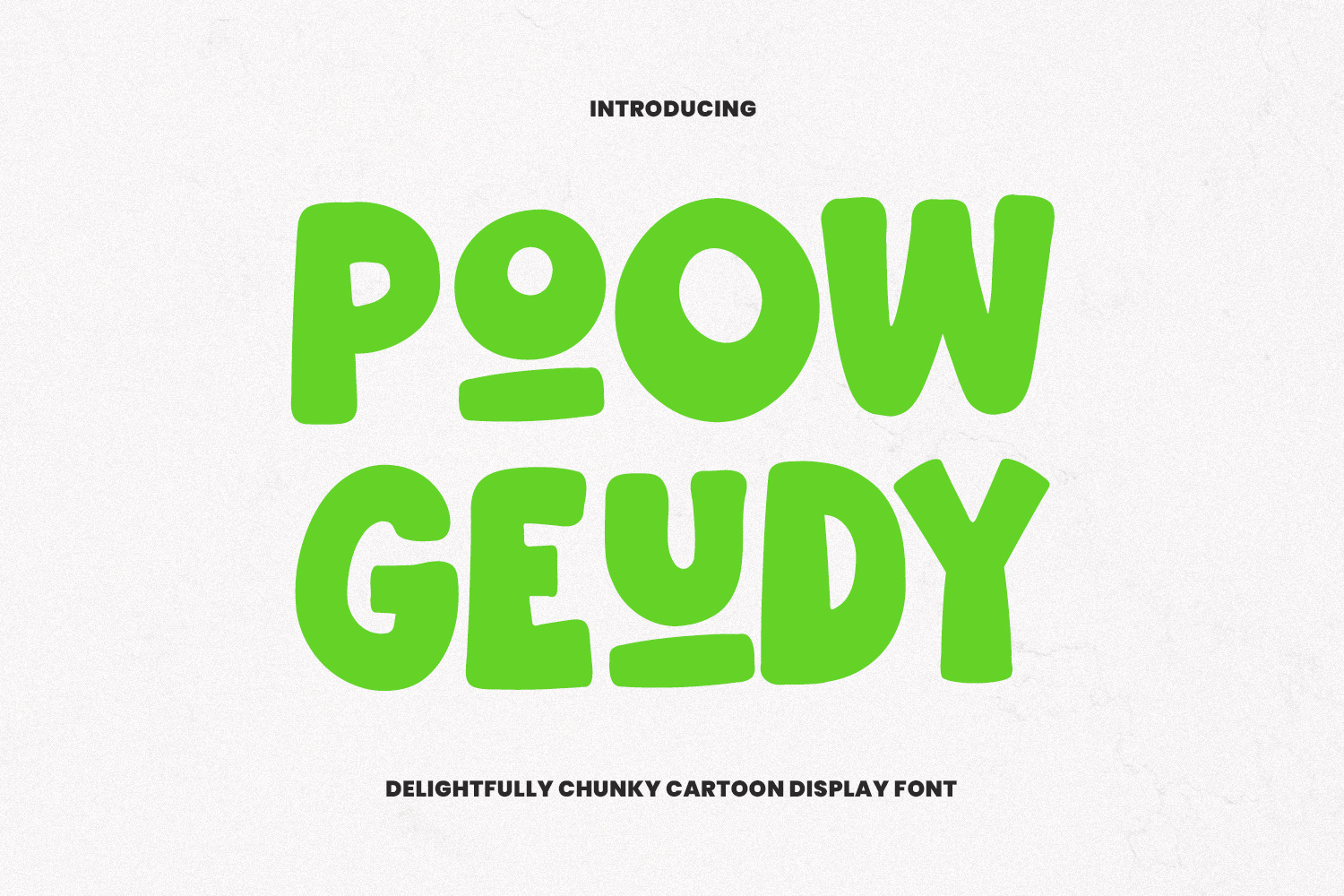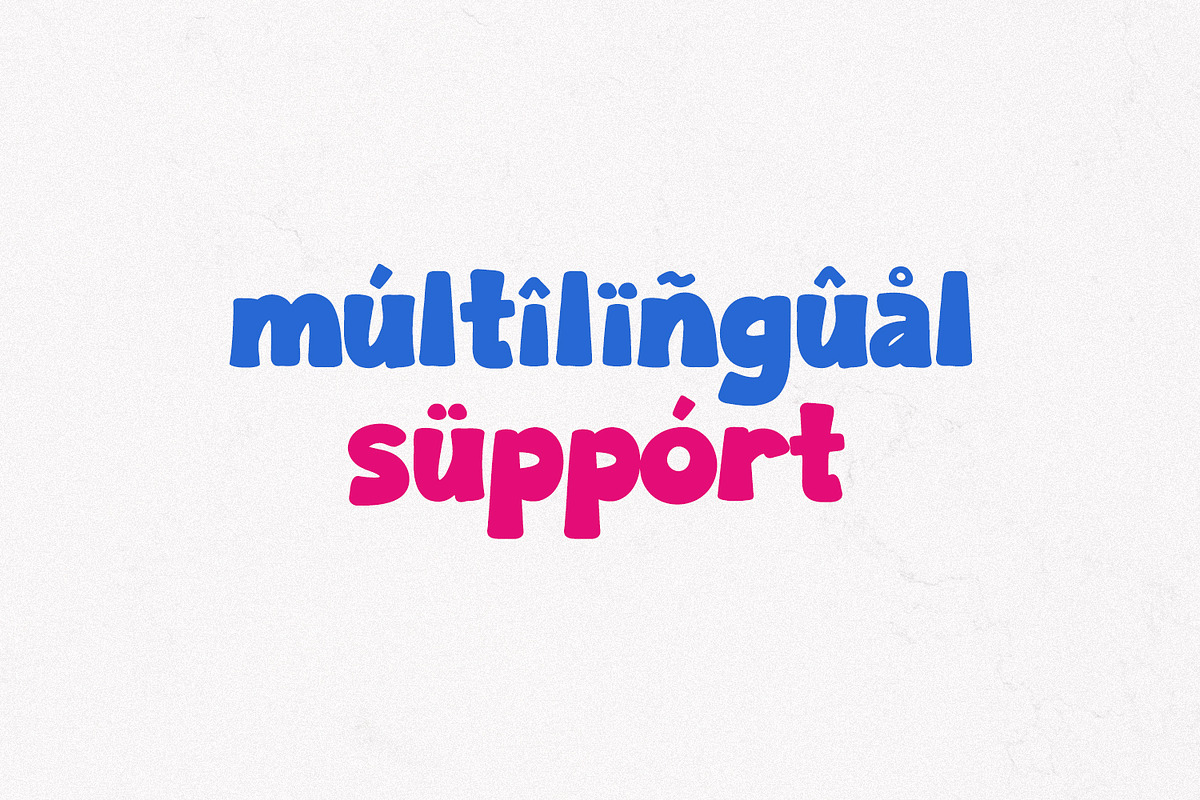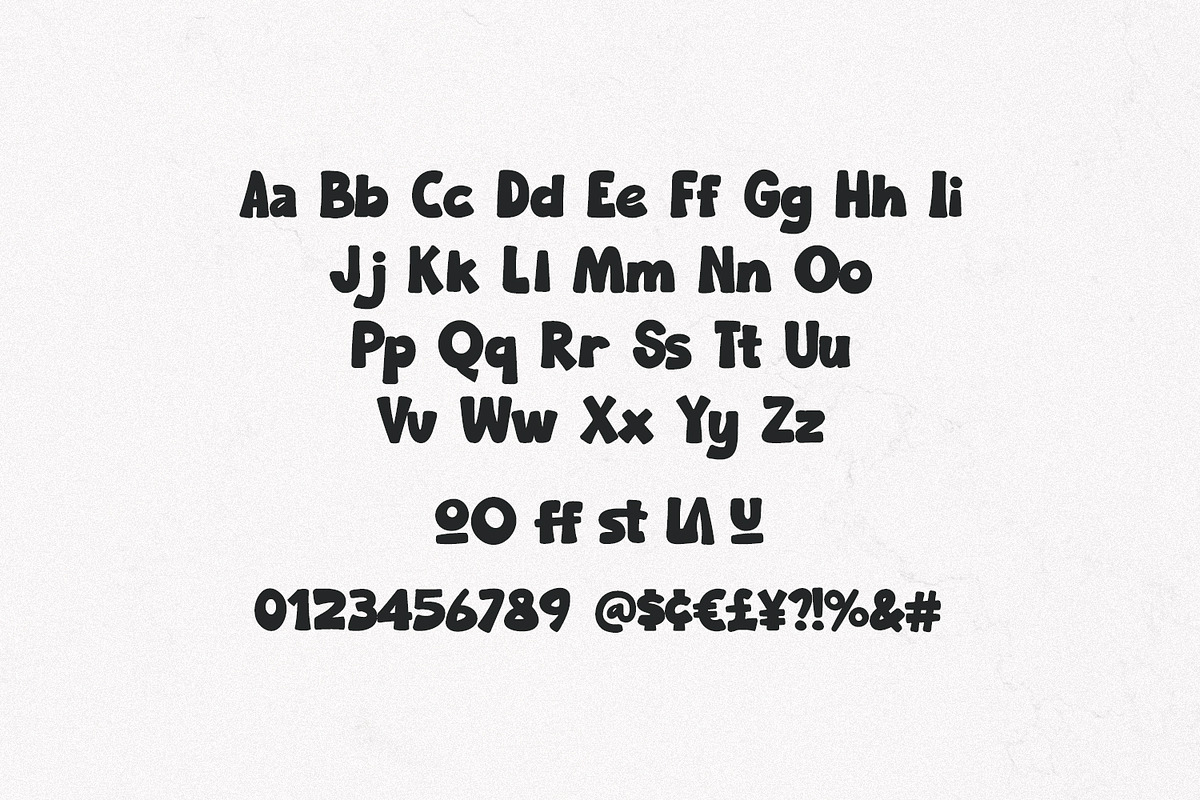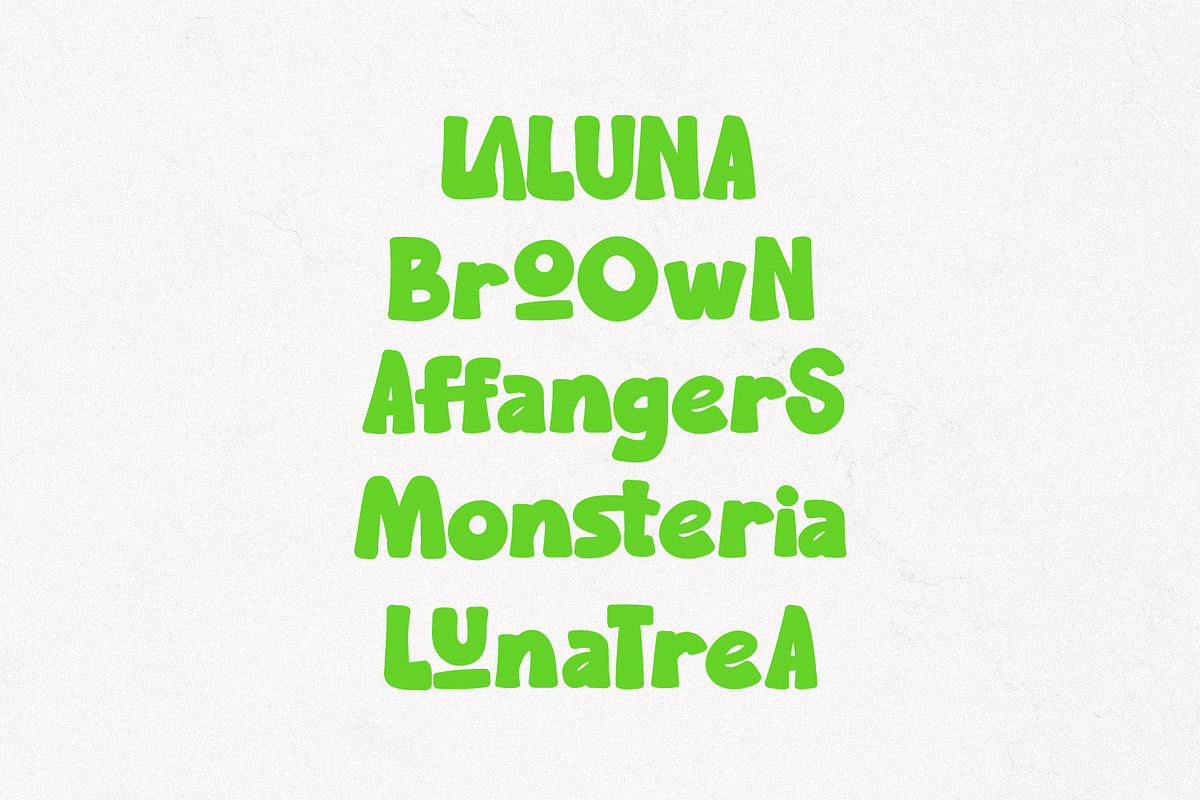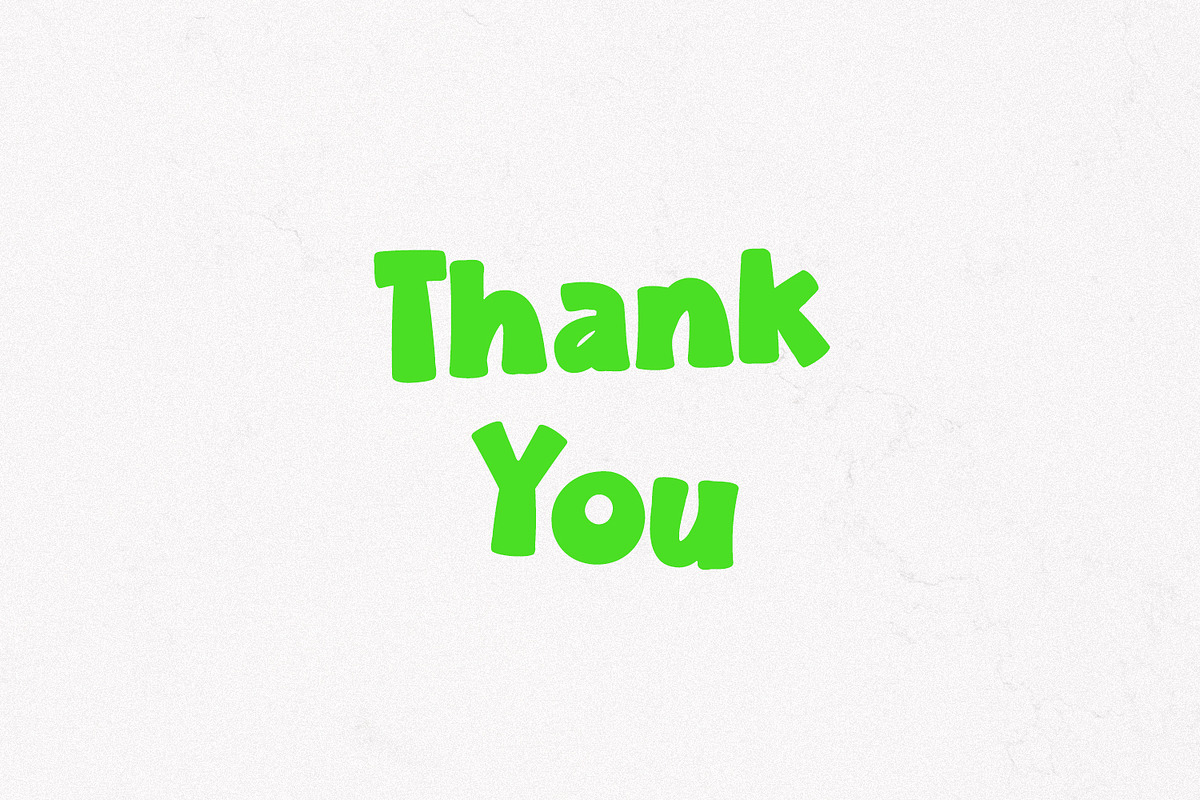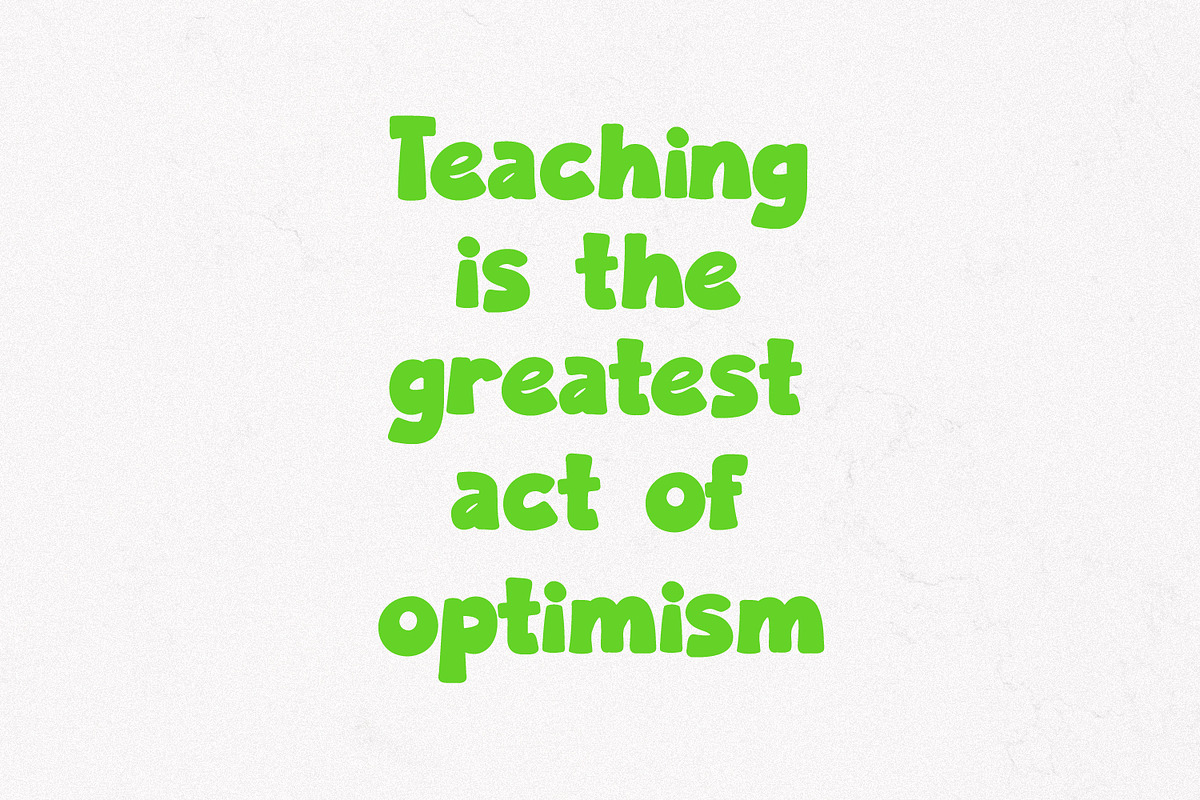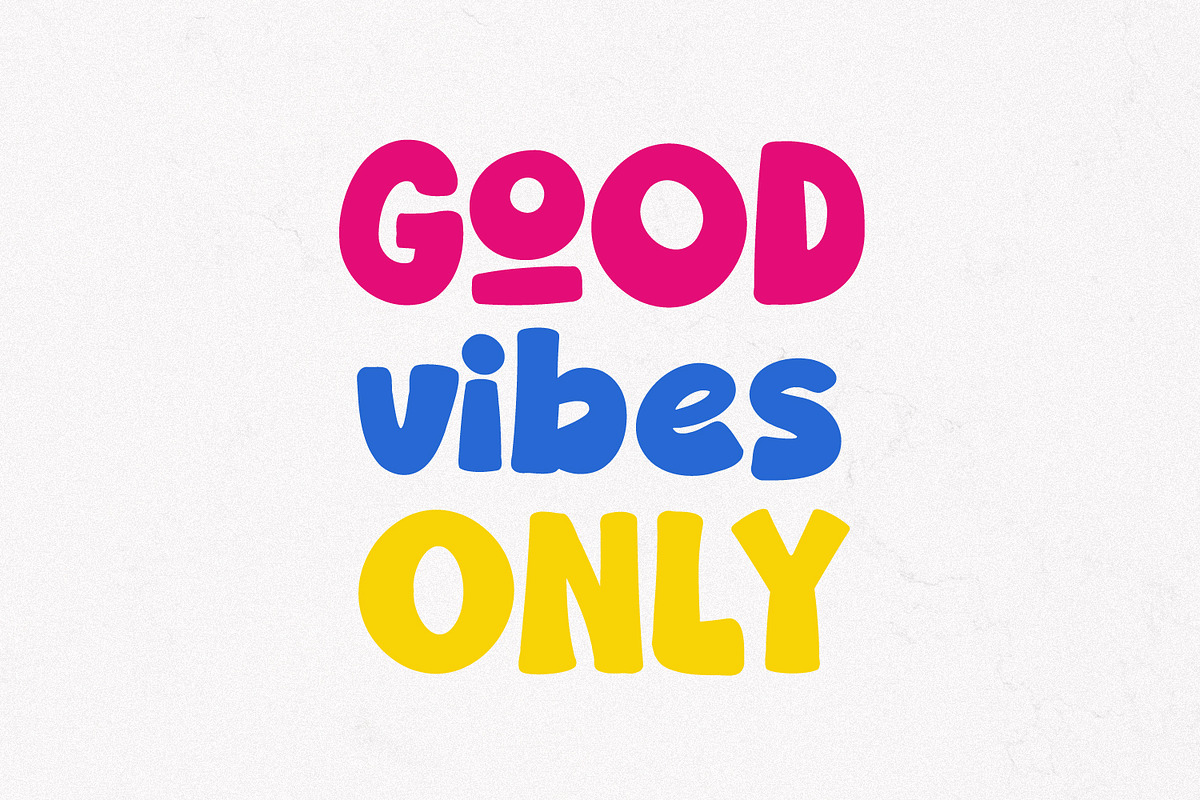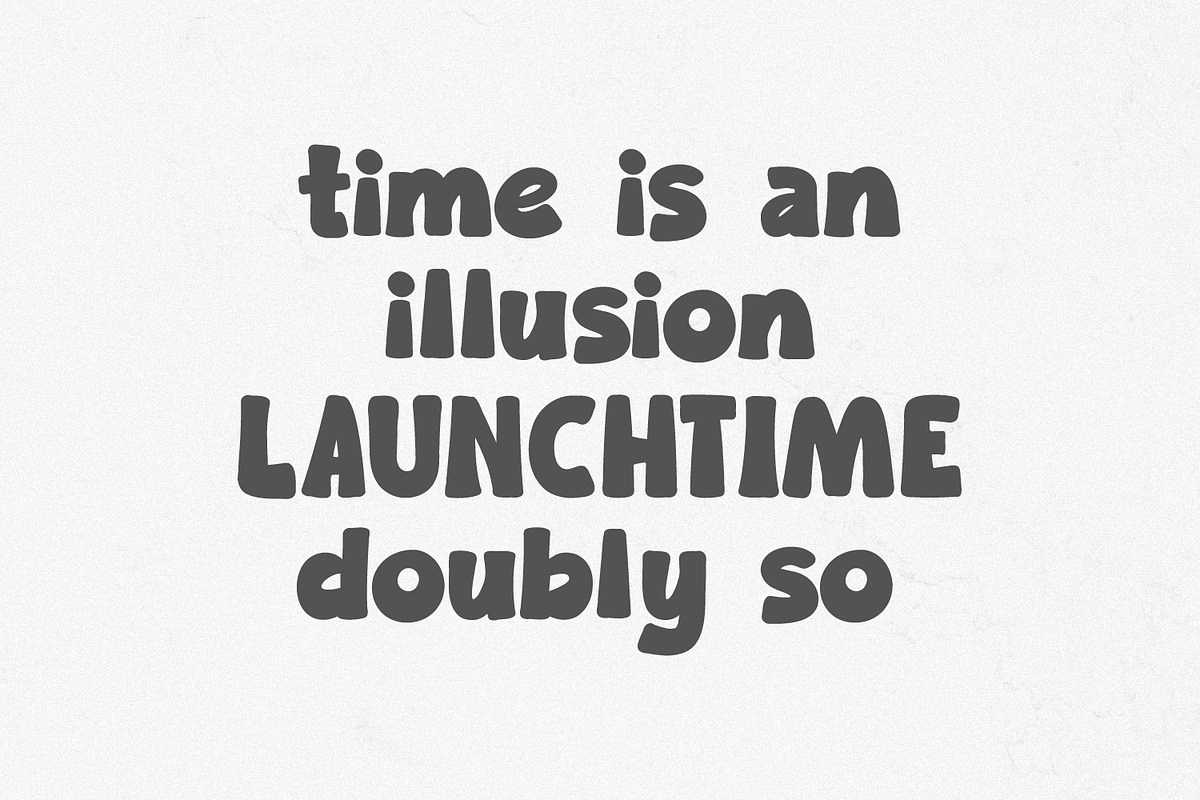
Poow Geudy Delightfully Cartoon Font
Are you ready to inject a massive dose of fun and personality into your design projects? Meet Poow Geudy, a delightfully chunky, cartoon-inspired display font that’s impossible to ignore!
Poow Geudy is bursting with playful energy. Its smooth, rounded edges and bold, friendly forms give it an irresistibly charming character that instantly makes any text feel approachable and vibrant. This is the font you need when you want to make a big, happy statement.
- Branding & Logos: Create memorable, kid-friendly, or snack-brand identities.
- Packaging: Stand out on the shelf with eye-catching, unique typography.
- Social Media: Design viral-ready posts, stories, and headers.
- Posters & Apparel: Ideal for merchandise, event flyers, and attention-grabbing headlines.
- Children’s Books & Games: Bring stories and characters to life with a truly joyful typeface.
With its robust, attention-demanding weight and quirky details (like the fun alternates seen in the image!), Poow Geudy is designed to be the star of the show. Don't settle for boring. Grab Poow Geudy today and turn your designs from dull to WOW!